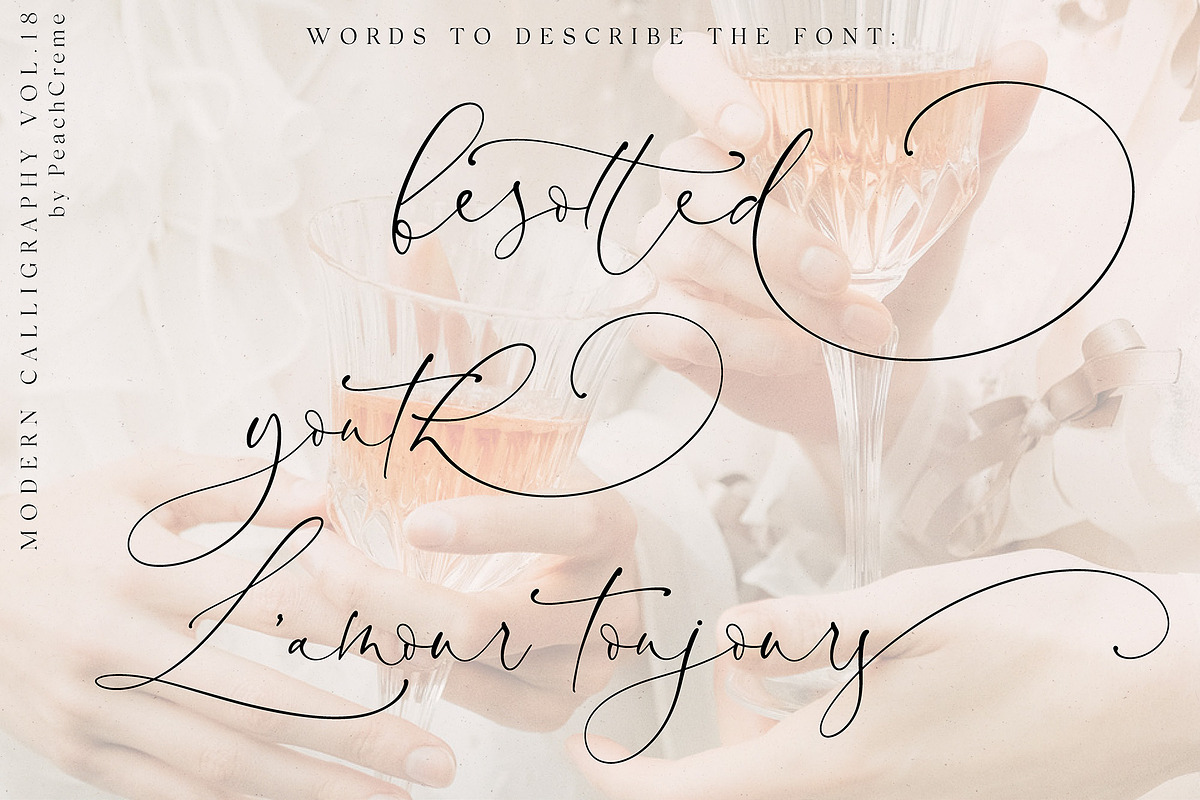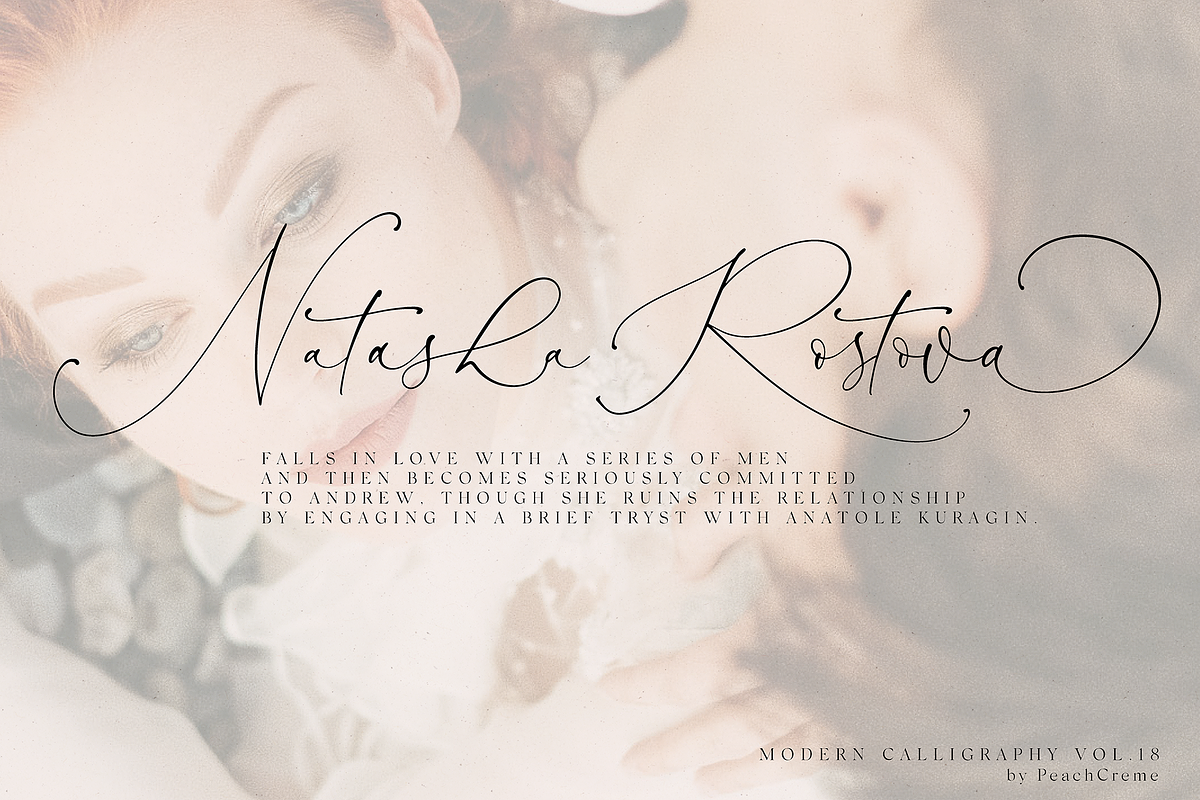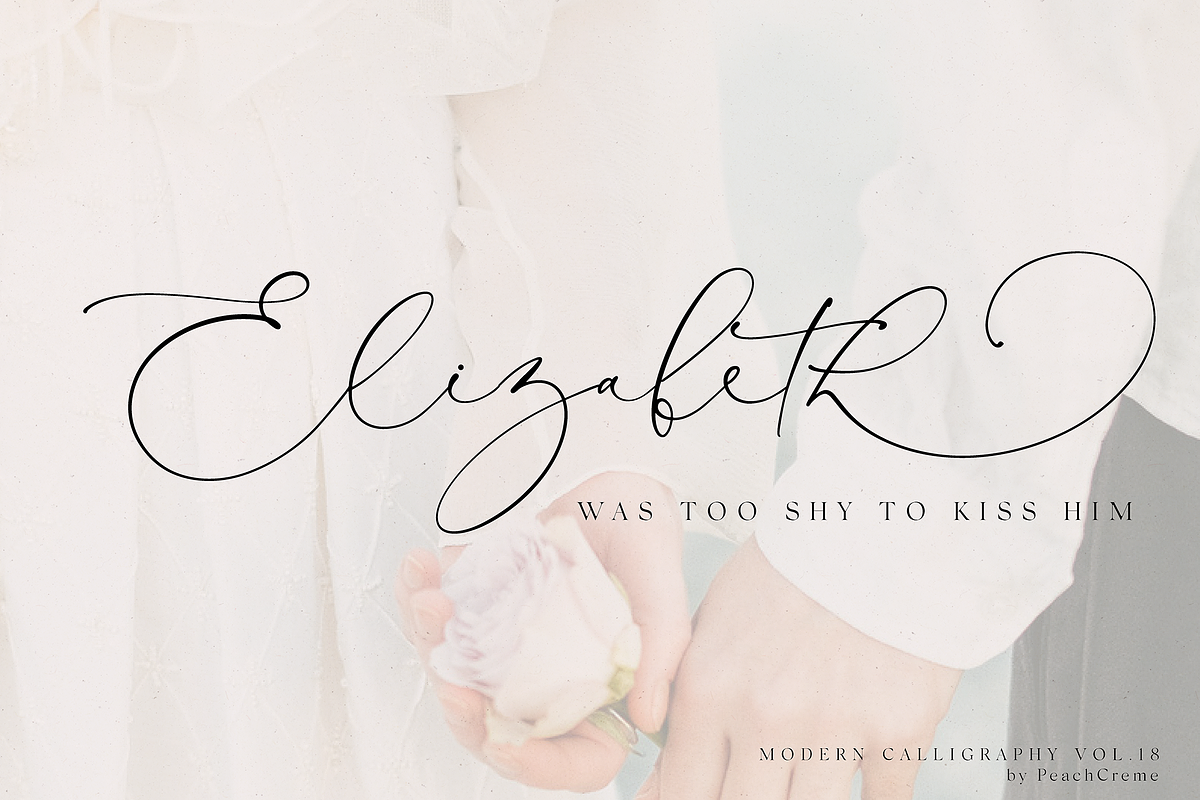
Antoinette is a light, lovely, crème de la crème modern calligraphy font with playful letters. It is perfect for branding, wedding invites and cards.
The font includes a full set of gorgeous uppercase and lowercase letters, numerals, a large range of ligatures and standard punctuation. All lowercase letters include ending swashes. Each swash has its trajectory.